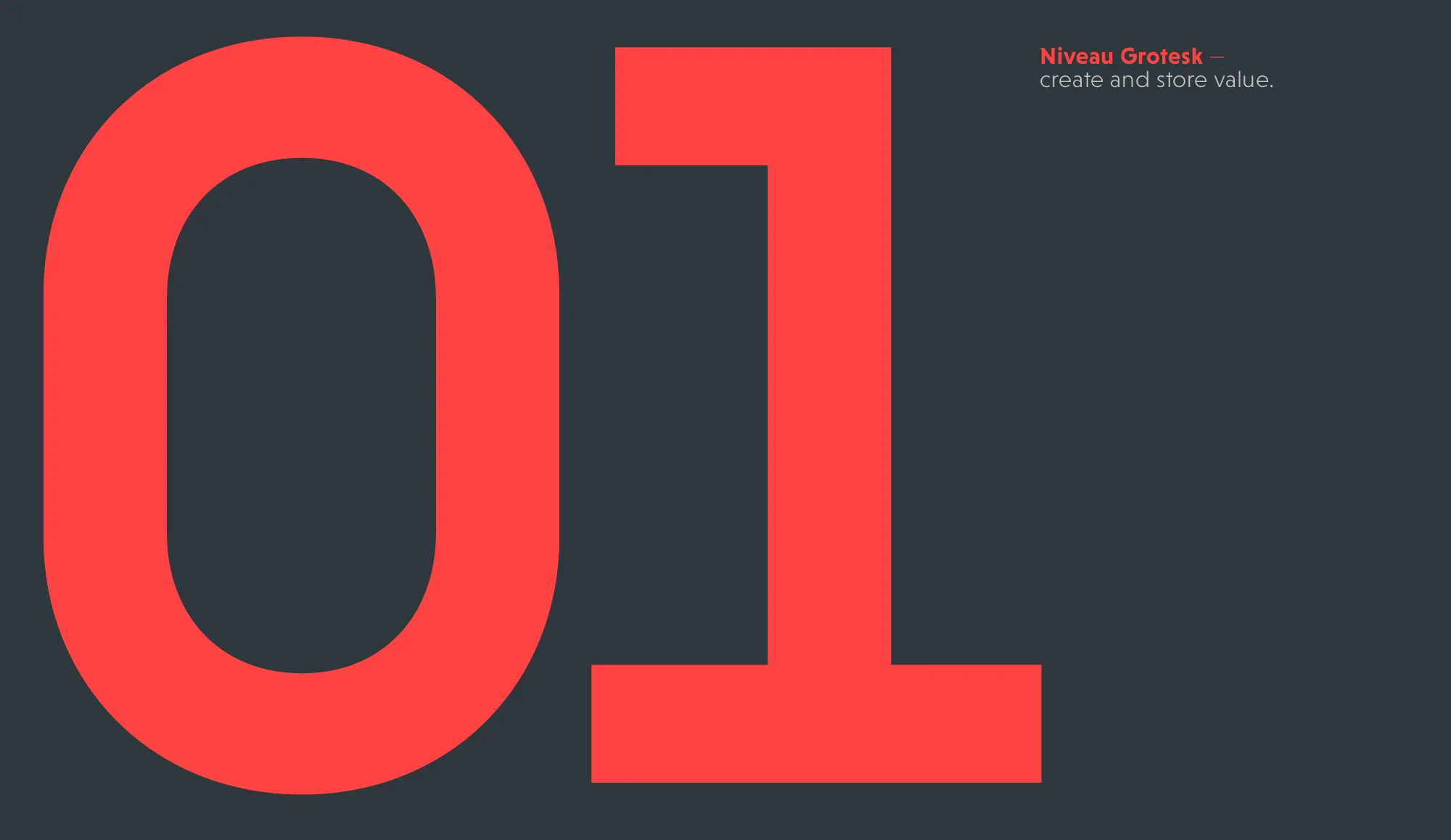
Niveau Grotesk
A European grotesque sans from HvD Fonts designed for functional text and display use.
Niveau Grotesk sits in the tradition of European grotesque sans-serifs, offering clean, neutral letterforms suited to both text and display applications. The page was inaccessible at time of review, so specific weight counts and language coverage could not be confirmed from the foundry's own copy. Based on HvD Fonts' broader catalogue, it is likely a workhorse grotesque with a broad weight range and italic companions.
The name and foundry context strongly suggest a grotesque sans-serif in the European tradition, typical of HvD Fonts' output which favours clean, functional grotesques.